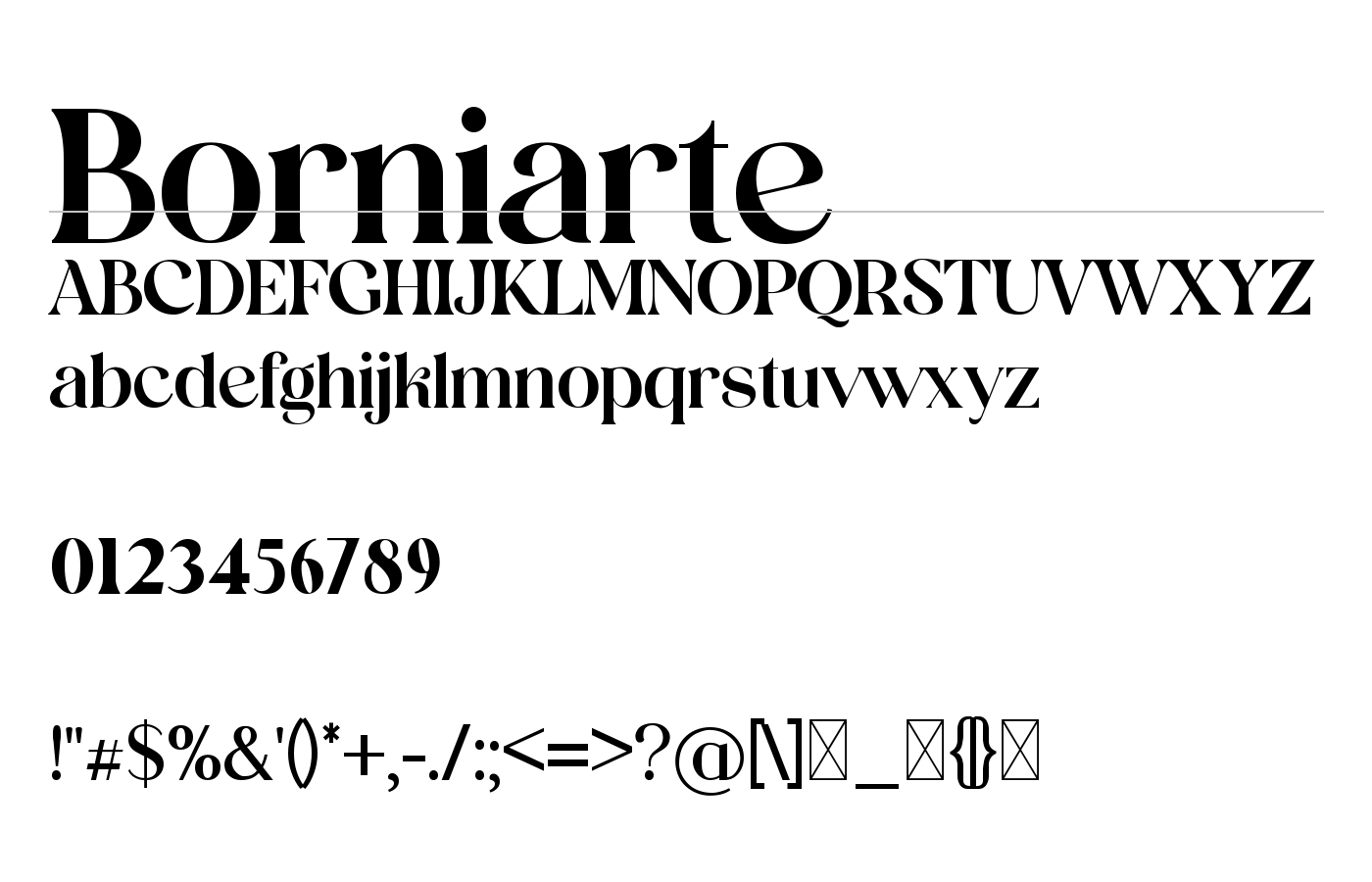
Borniarte is a refined serif font characterized by strong contrast between thick and thin strokes, with elegant bracketed serifs and a moderately high x-height that balances readability with sophistication. Its distinctive high stroke contrast and carefully crafted letterforms lend it a luxurious, classic feel that works beautifully for upscale branding, editorial headlines, and stylish packaging. This font is ideal for projects seeking a timeless yet modern touch of elegance and authority.
Borniarte Font